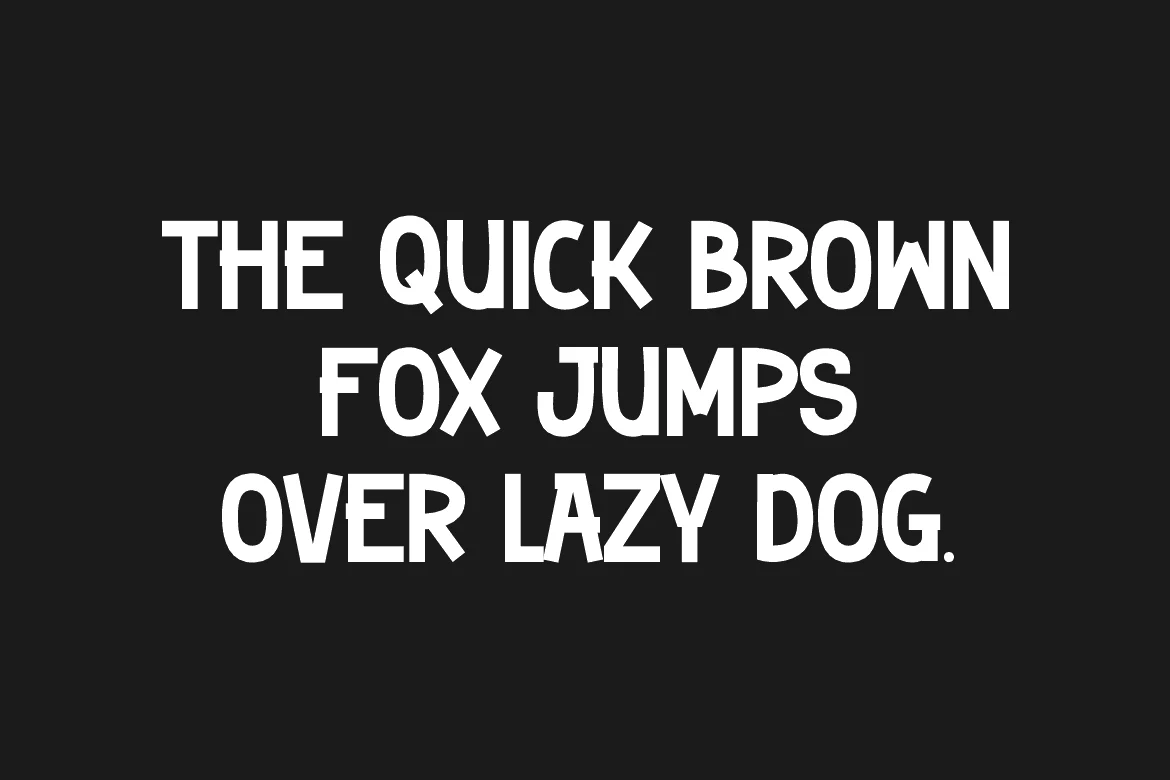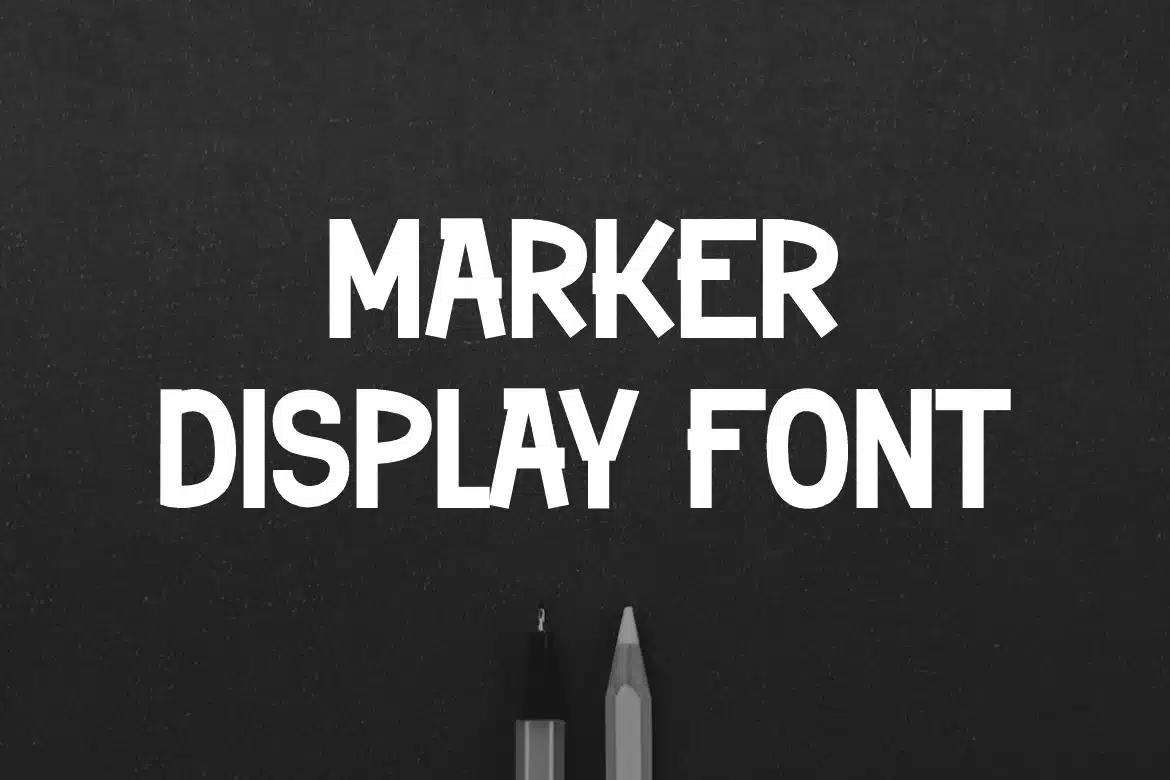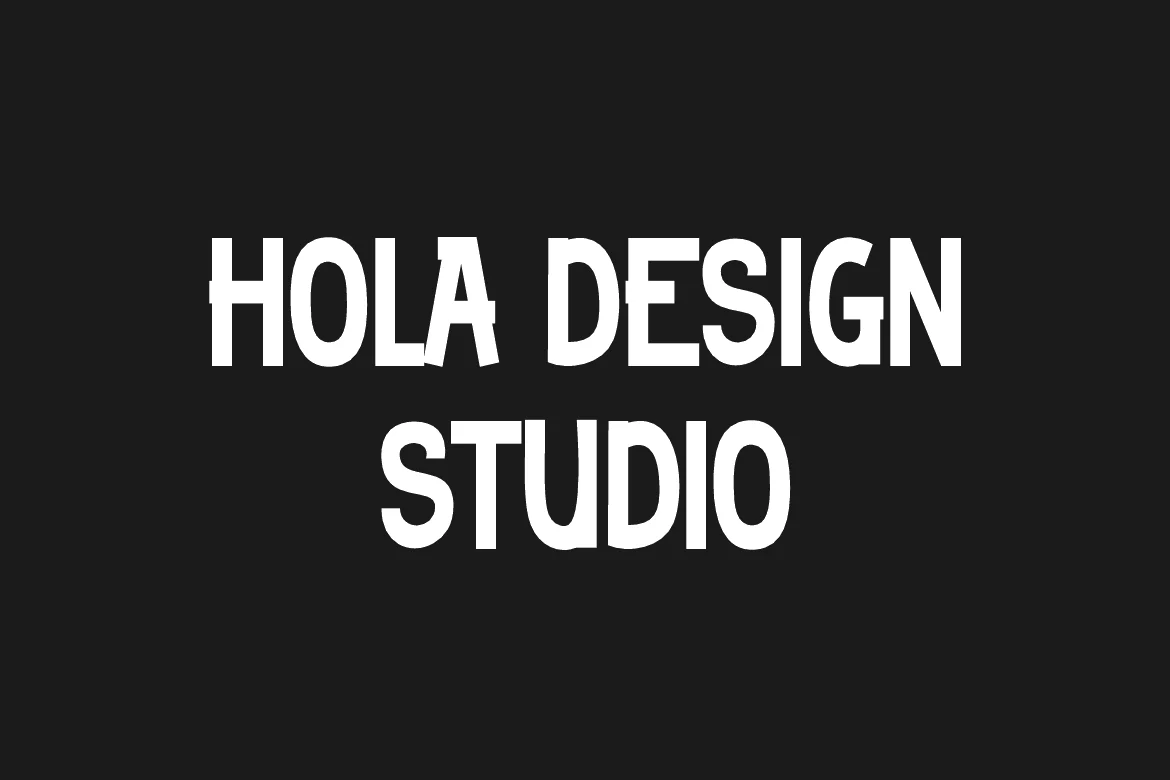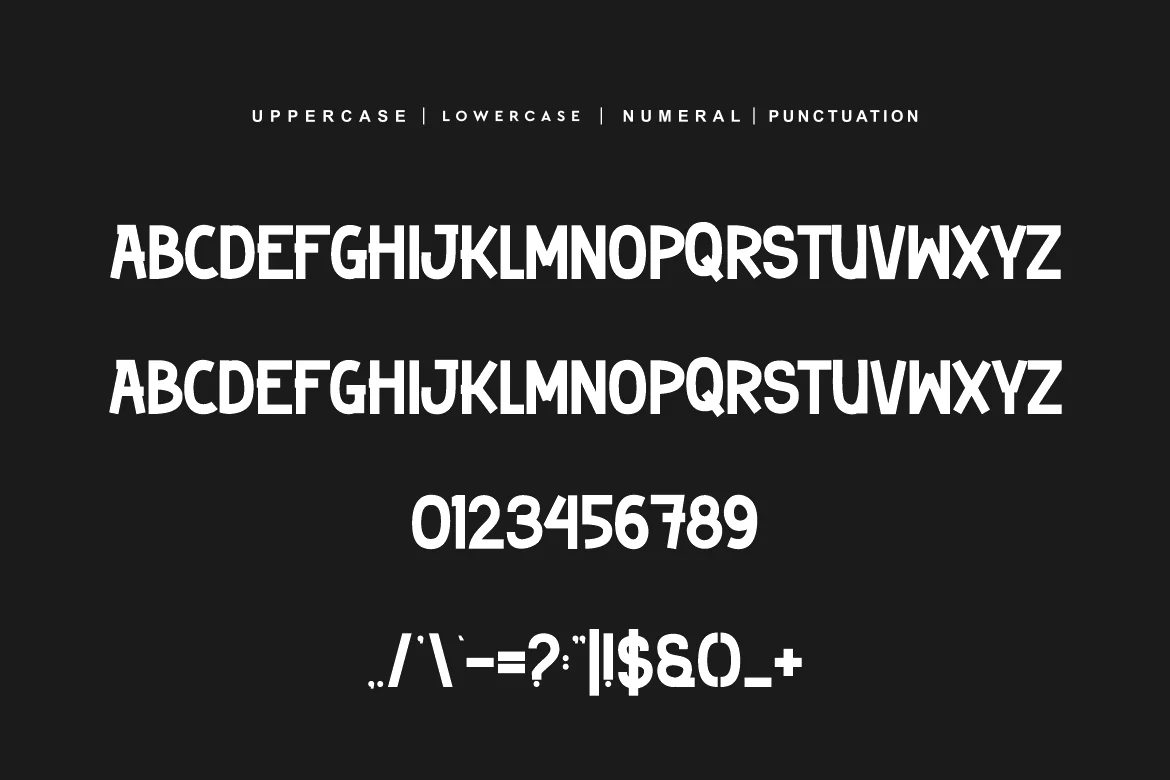
Erpone – Marker Display Font
Erpone - Marker Display Font is unique . Ready to use for your design like labeling, movie sceen, poster, movie title, gigs, album covers, logos, and much more.